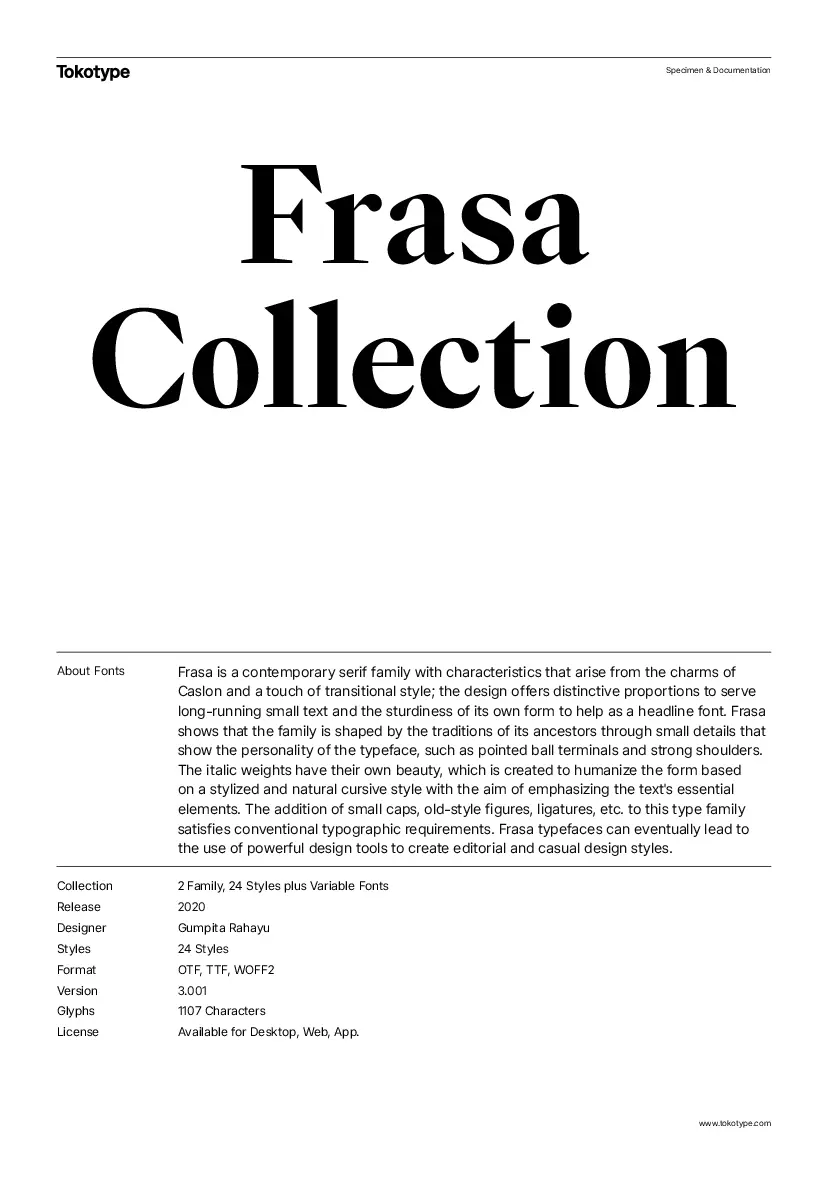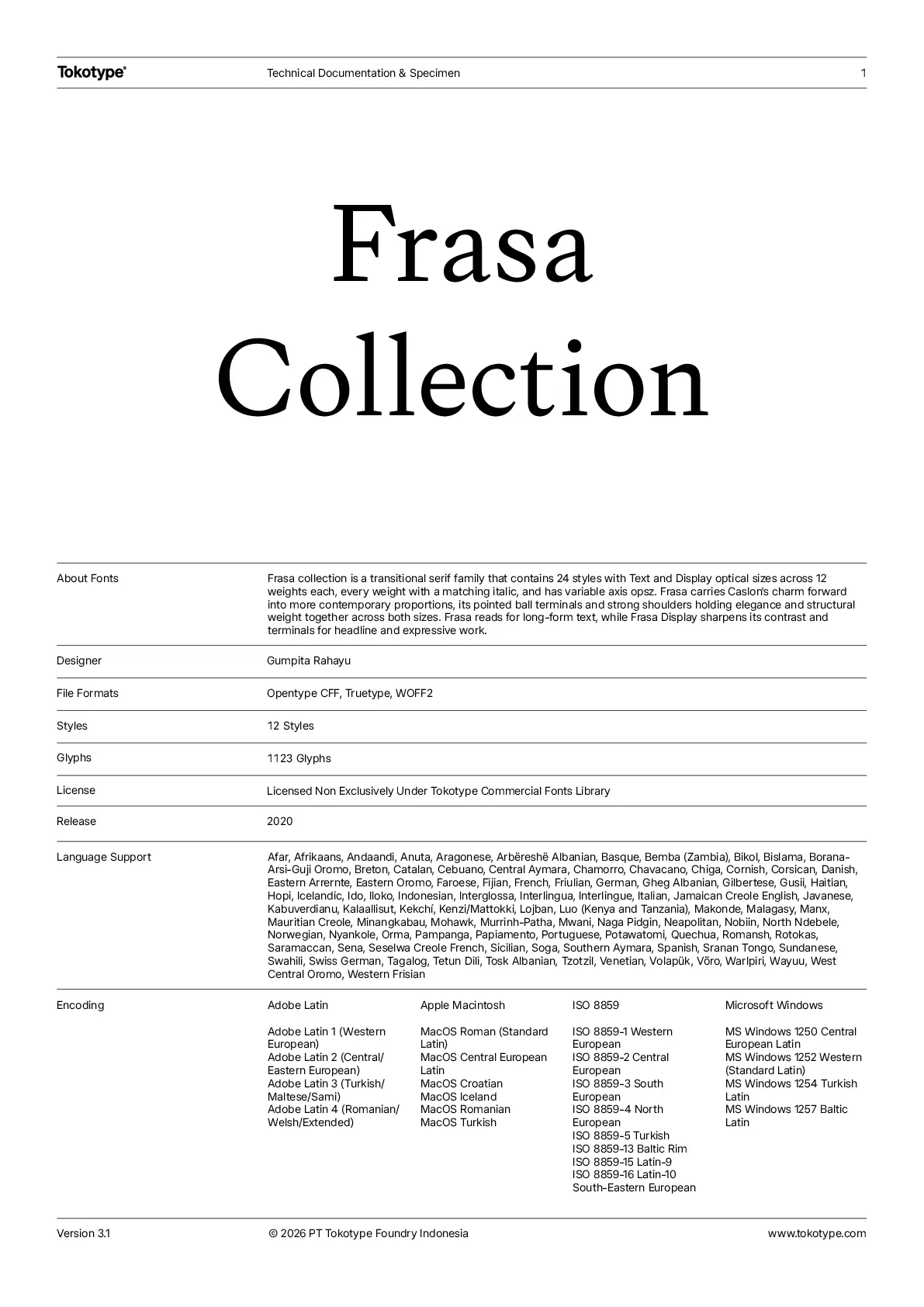
Frasa Collection
About Collection
Frasa collection is a transitional serif family that contains 24 styles with Text and Display optical sizes across 12 weights each, every weight with a matching italic, and has variable axis opsz. Frasa carries Caslon's charm forward into more contemporary proportions, its pointed ball terminals and strong shoulders holding elegance and structural weight together across both sizes. The opsz axis is what separates them in use: Frasa reads for long-form text, while Frasa Display sharpens its contrast and terminals for headline and expressive work, the same historical hand carrying the reading and the attention across one system.